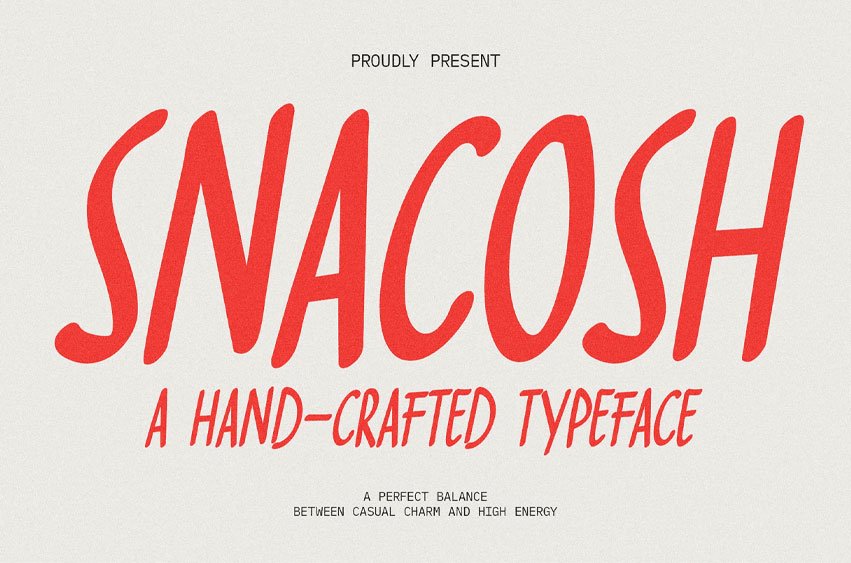
Snacosh Font Playful & Energetic Hand-Drawn Font Snacosh is a hand-crafted display font that strikes a perfect balance between casual charm and high energy. Featuring slender letterforms and dynamic curves, this font brings a personal, organic touch to any design. Its relaxed yet highly legible characteristics make it an ideal choice for projects that need to feel friendly, spirited, and authentic.
Whether you are designing food packaging, event posters, or social media graphics, Snacosh adds a human element that helps your work stand out in a crowded market.